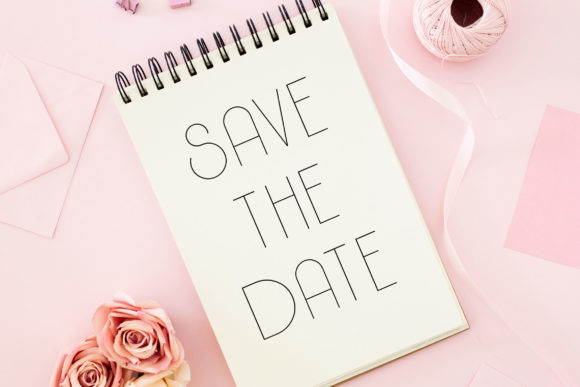
Sunday Shine Thin Font
Sunday Shine Thin is a beautiful, light and smart sans serif font with incredible charm. It will put a modern twist on any design idea.